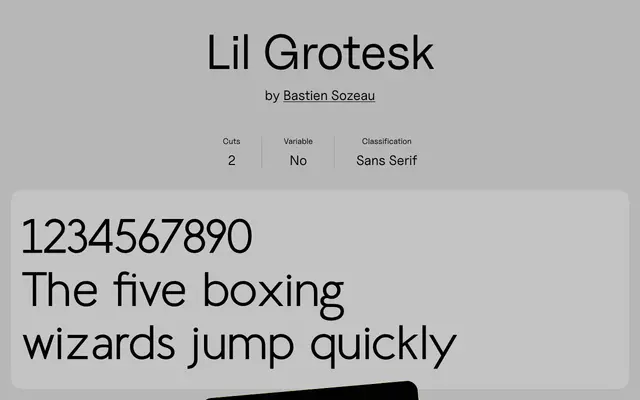
Lil Grotesk
A compact grotesque sans by Bastien Sozeau, available in two cuts under the SIL Open Font Licence.
Designed by Bastien Sozeau, Lil Grotesk is a grotesque sans-serif released in two cuts. It is licensed under the SIL Open Font Licence 1.1, permitting commercial use, modification and redistribution with certain conditions. A straightforward option for projects requiring a compact, no-frills grotesque at no cost.
Classified as Sans Serif by the foundry; the name and general style indicate a grotesque sans-serif typeface.